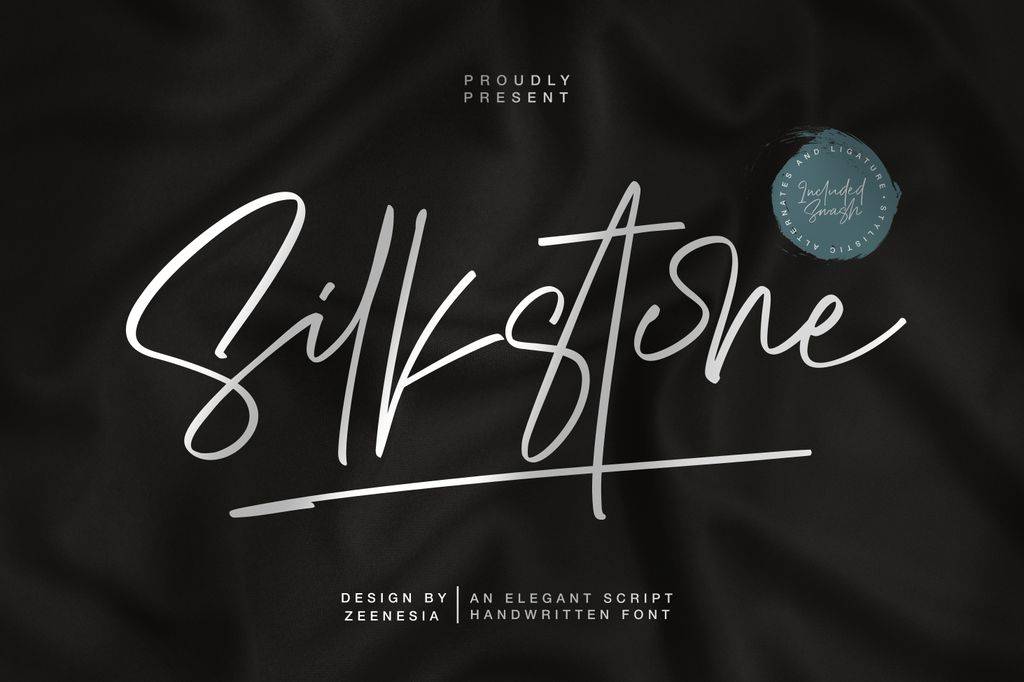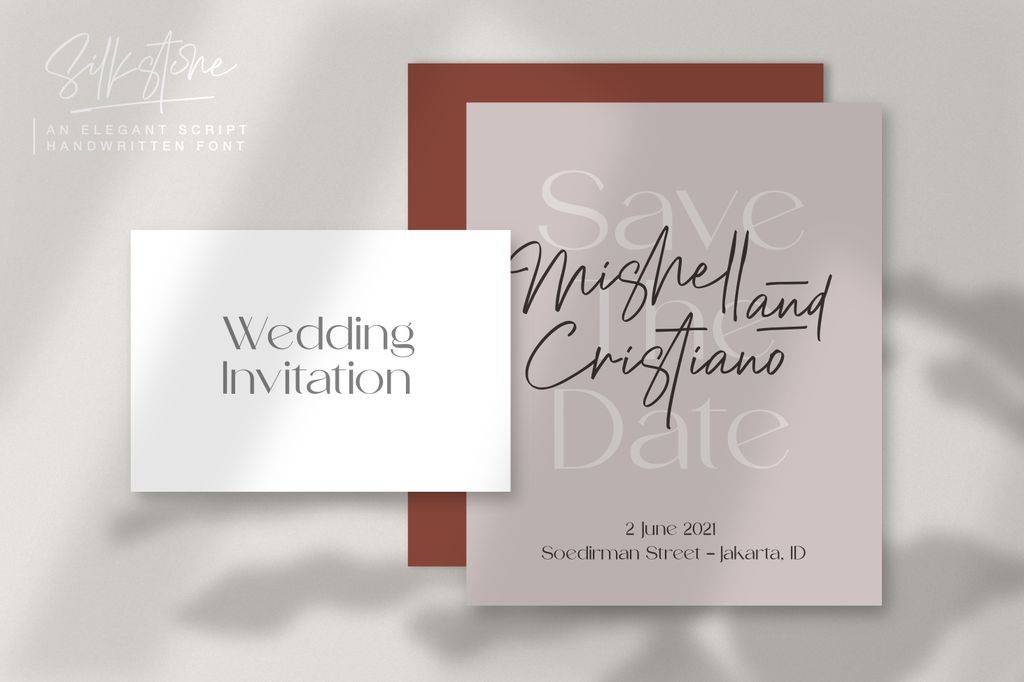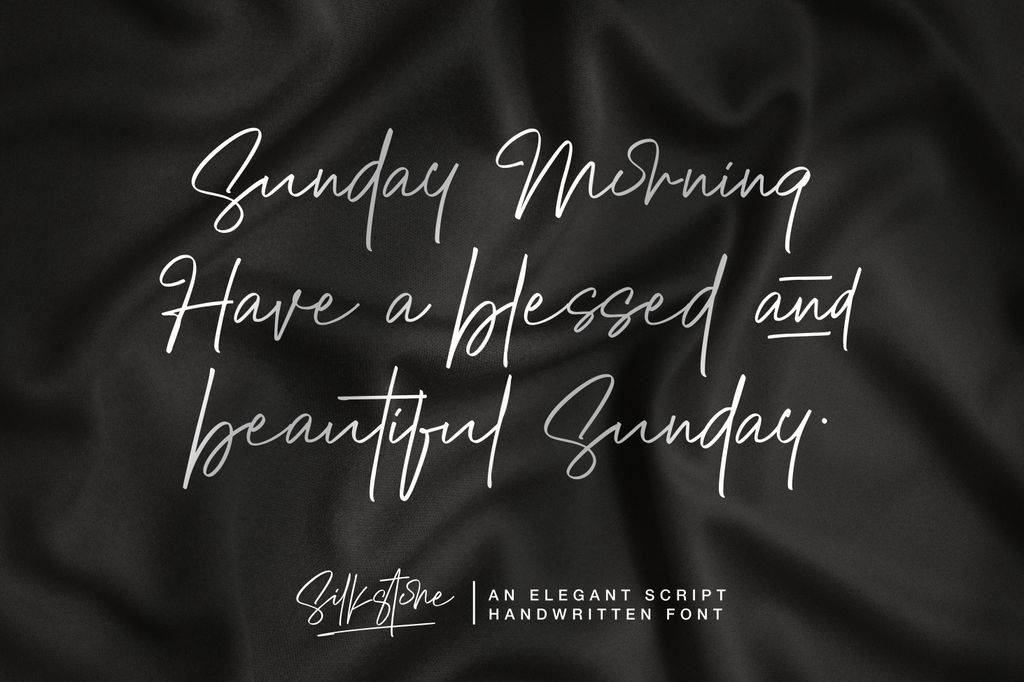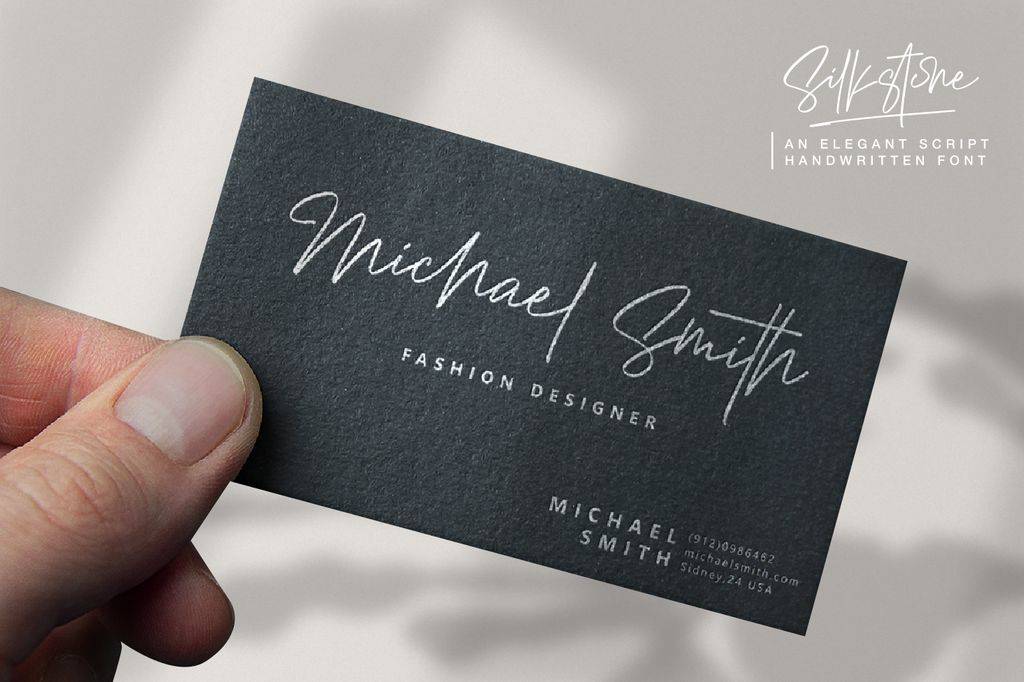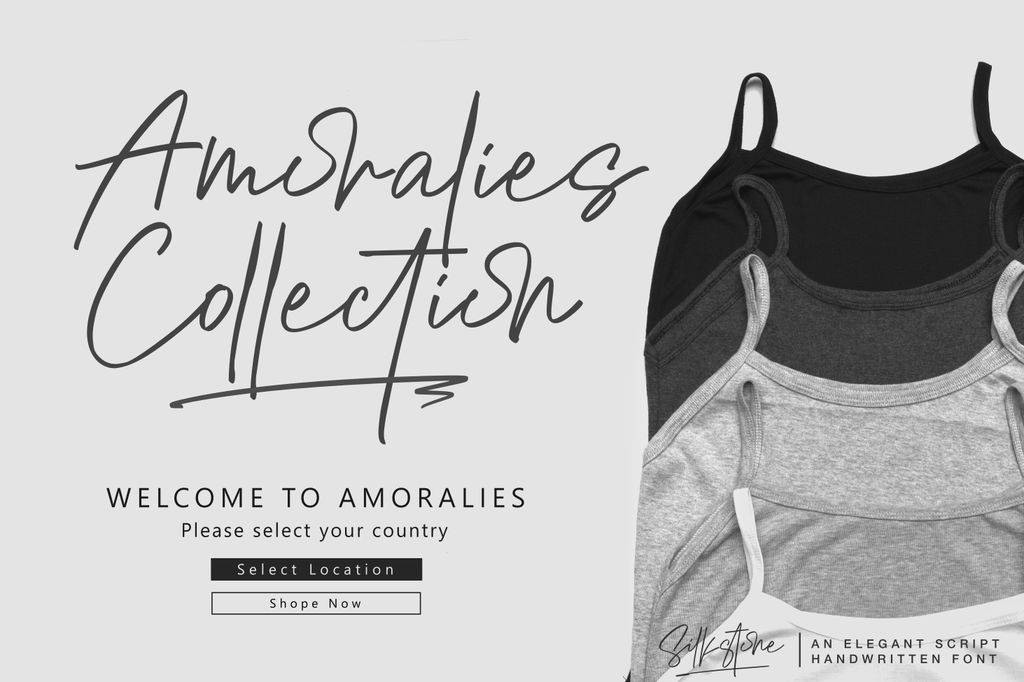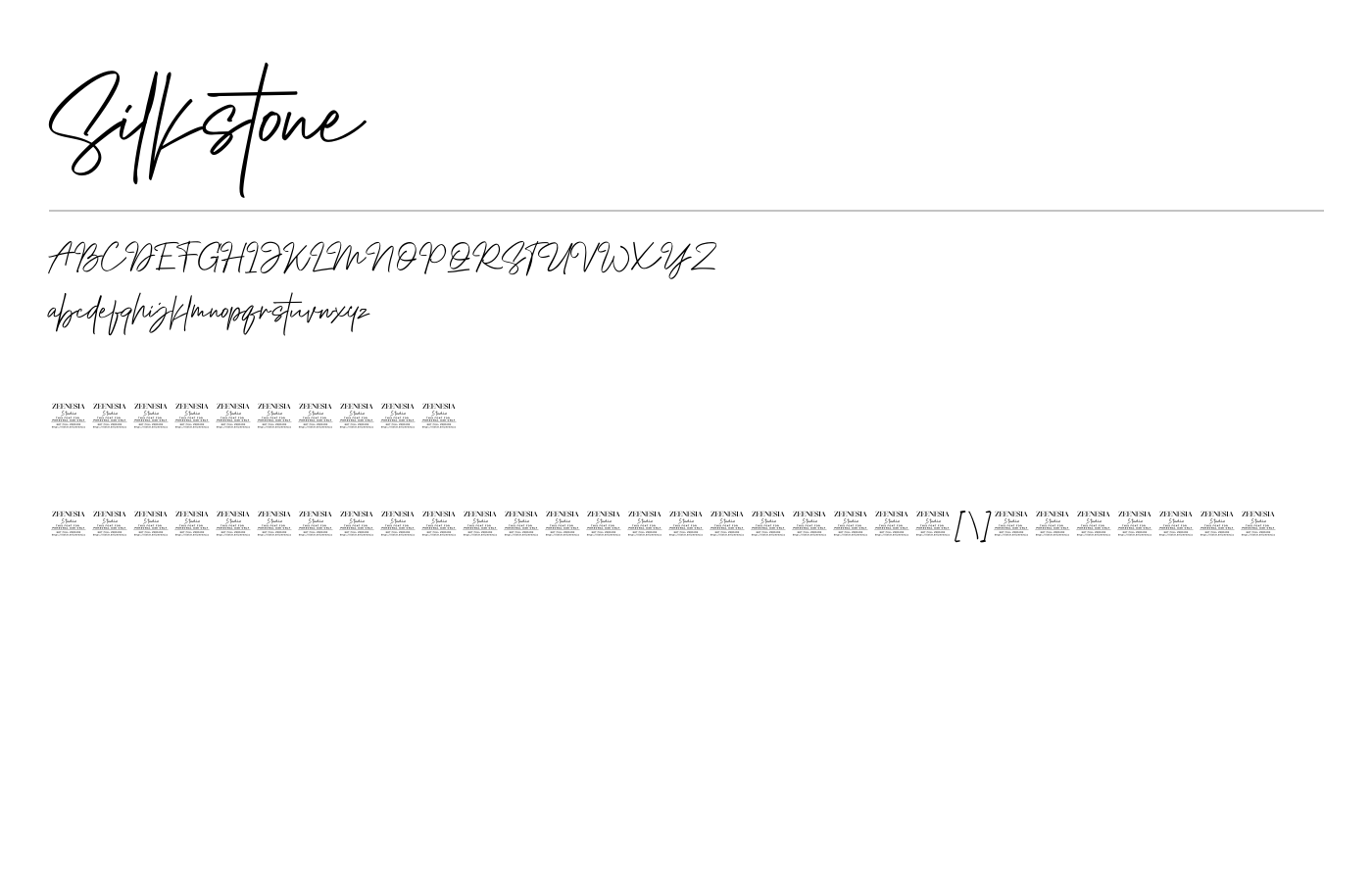
Silkstone Font is an elegant, handwritten script typeface characterized by its slender, flowing strokes and high x-height that create an airy, sophisticated look. Its delicate yet confident lines give it a modern, stylish personality perfect for fashion branding, invitations, and creative projects that seek a personal, refined touch. This font works wonderfully in headlines or logos where a graceful and contemporary handwritten feel is desired.
Silkstone Font
About Silkstone Font